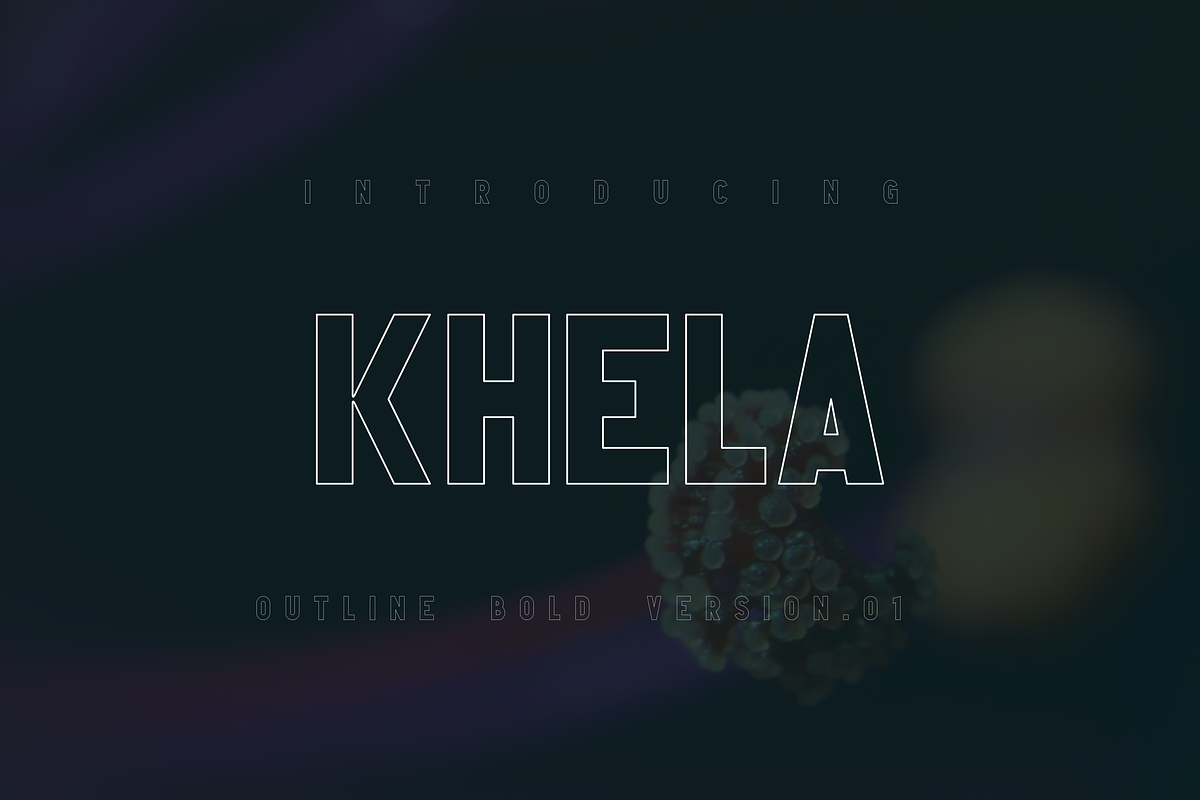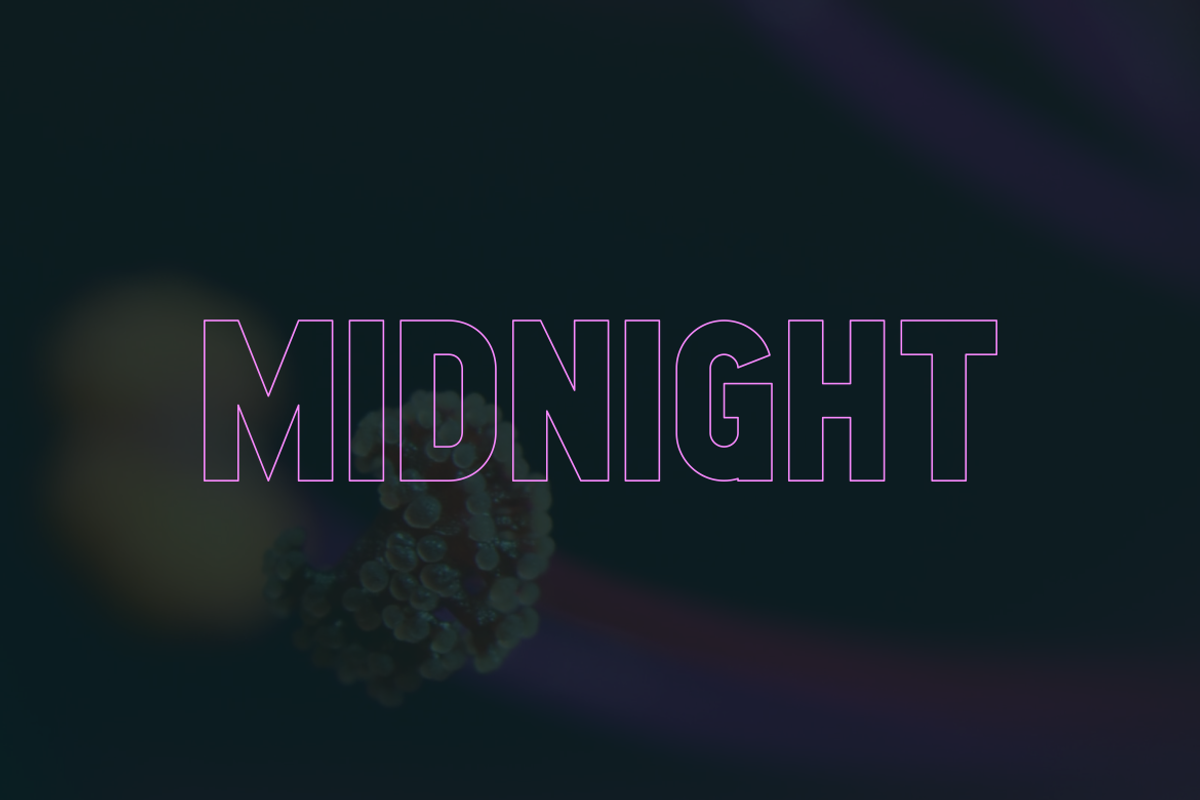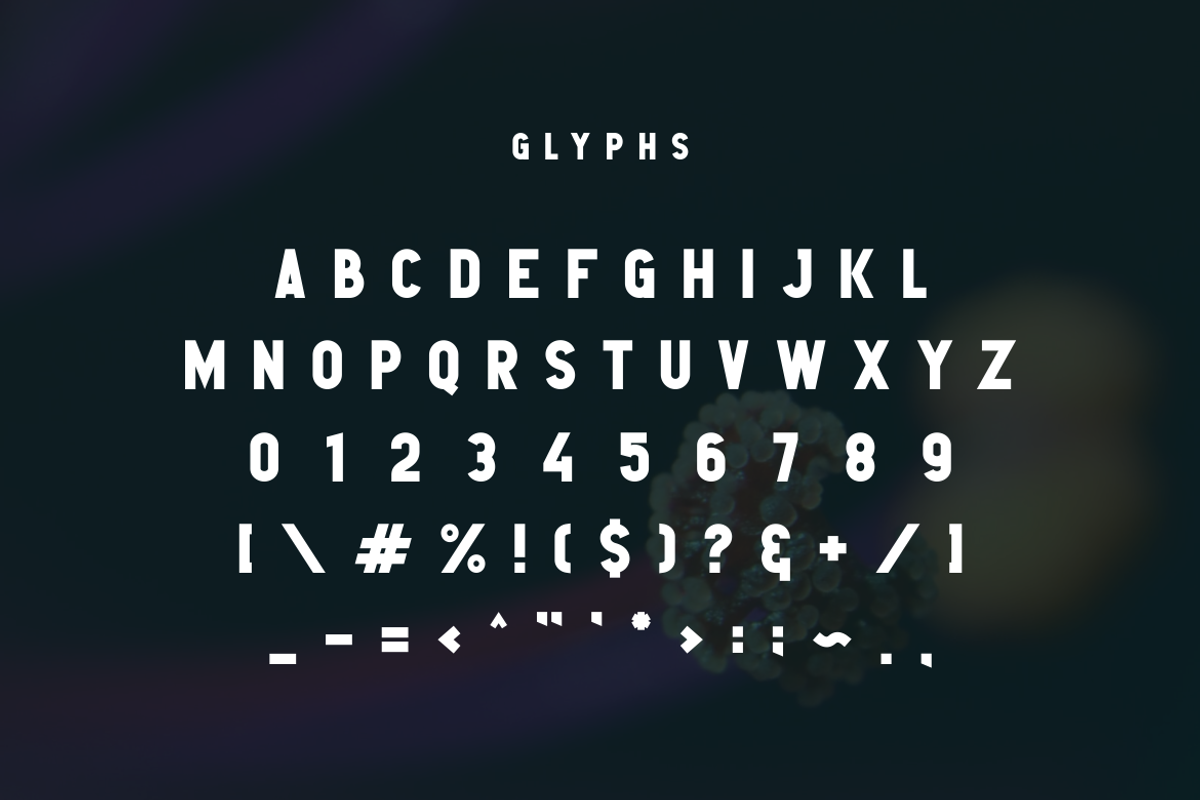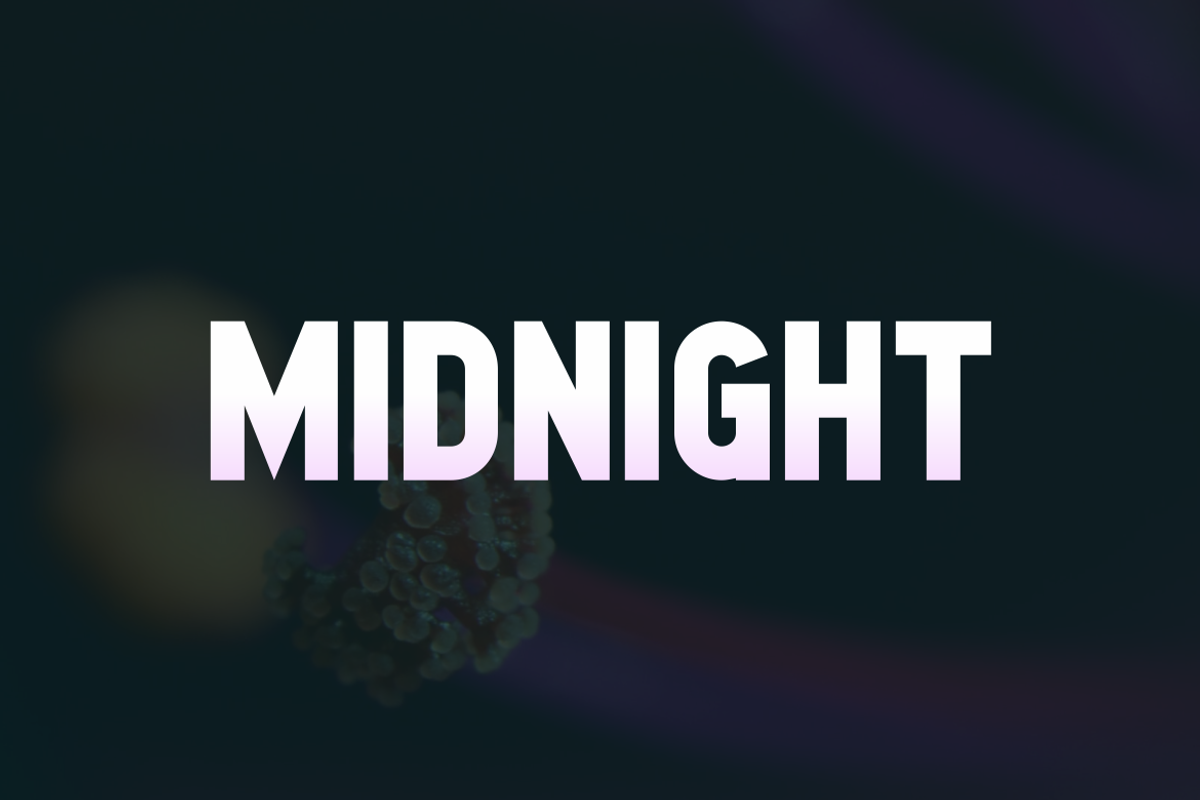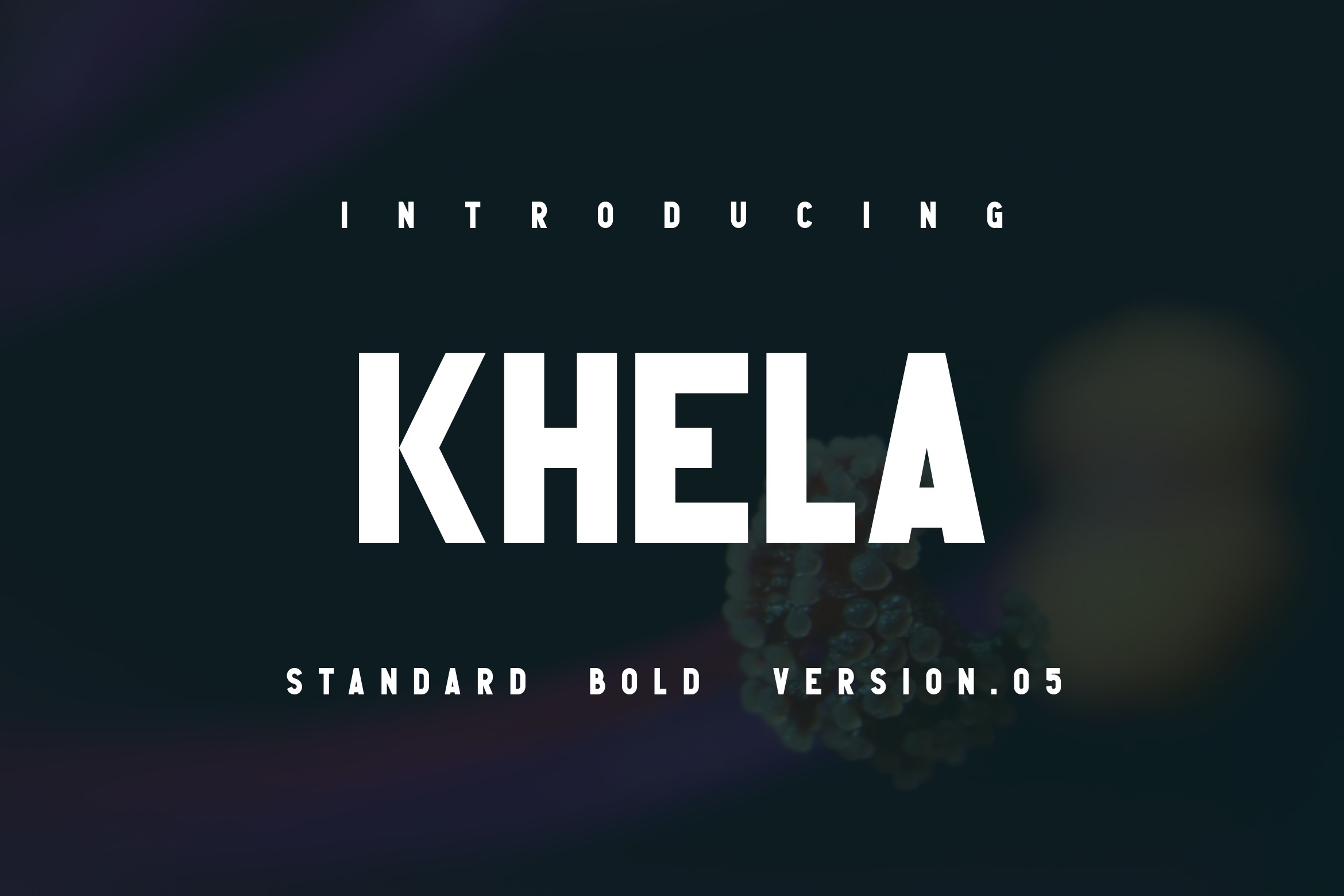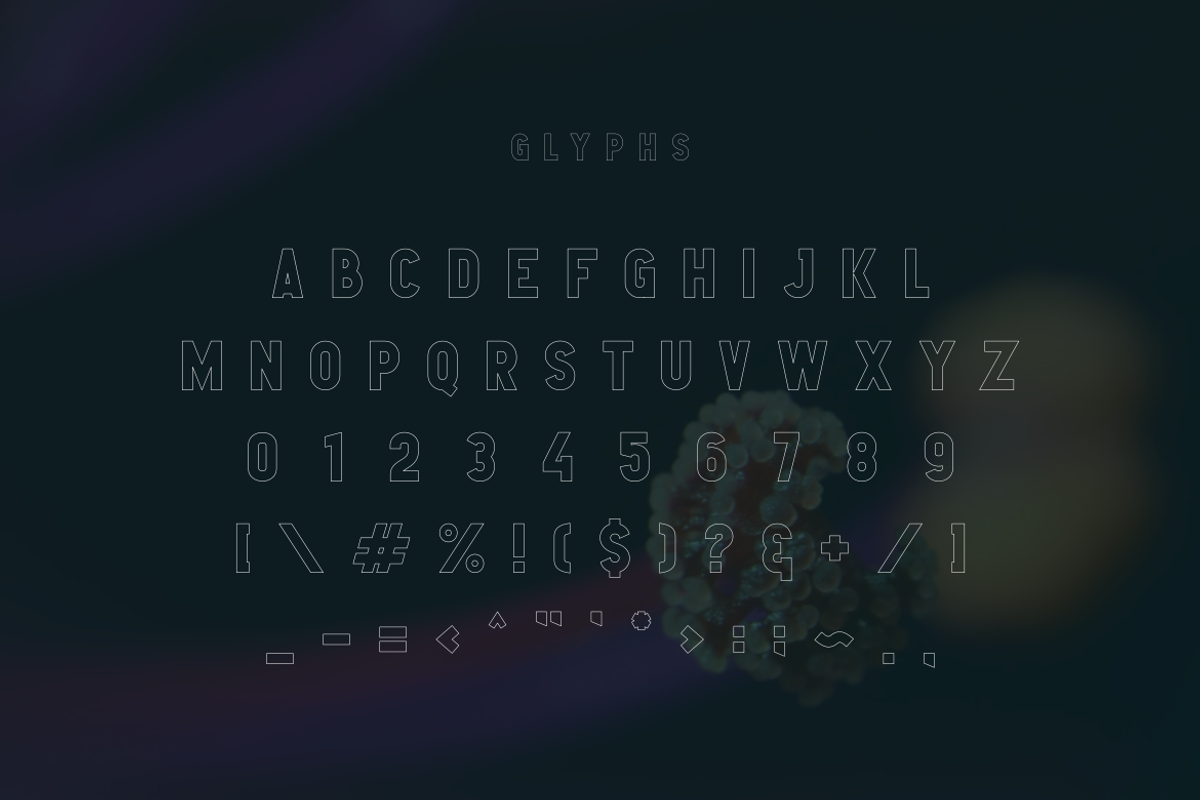
Khela ( Regular-Outline ) Bold Font
Immerse yourself in the depths of Khela, a truly captivating Sans Elegant font. With a unique mix of refinement and practicality, Khela boasts two distinctive styles, Regular and Outline, catering to a variety of design needs. Dive into the versatility of this highly sought-after font, which lends itself masterfully to any project, exuding an aura of sophistication and modernity. Khela guarantees a perfect, individualistic touch every time, making it the font du jour for discerning designers.